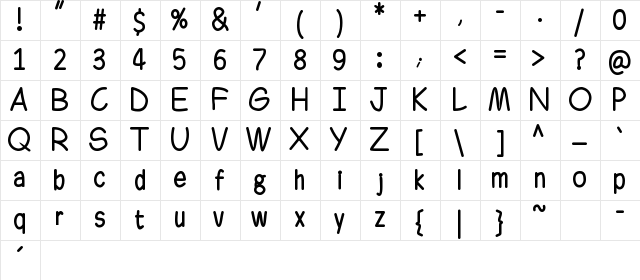
Complete Ferrero Rocker Regular glyph index. Displaying only characters natively supported by Ferrero Rocker Regular font.
Ferrero Rocker is a composed and adaptable typeface that performs quietly and consistently across a wide range of design contexts.